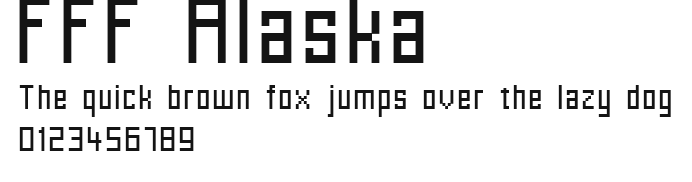
About FFF Alaska.ttf
FFF Alaska.ttf is a modern, elegant sans-serif font designed for ultimate readability and visual harmony. Perfect for branding, headlines, web design, and print materials.